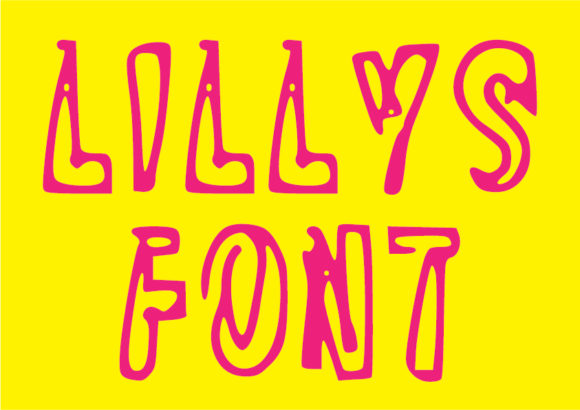
In a world saturated with monotony, Lilly's Font bursts forth like a confetti cannon, exploding with creativity and joy. This display font, a brainchild of GraphicsBam Fonts, is an ode to the untamed spirit of childhood, a celebration of messy, fun, and childlike expression.
Lilly's Font isn't just a font; it's an adventure. Its characters dance and cavort across the page, each letter a unique expression of personality. Perfect for comic lettering, Lilly's Font brings your stories to life with its playful, energetic style.
Imagine your comic book pages bursting with the infectious energy of Lilly's Font. The quirky letterforms, with their playful imperfections, add a touch of whimsy and charm, making your characters leap off the page and into the reader's imagination.
But Lilly's Font isn't just for comics. Its versatility knows no bounds. Use it to add a touch of whimsy to your invitations, posters, and social media posts. Let your creativity run wild as you explore the endless possibilities of this captivating font.
Lilly's Font isn't just a font; it's an experience. It's a chance to reconnect with your inner child, to embrace the joy of messy, fun expression. So, dive into the world of Lilly's Font and let your imagination soar.